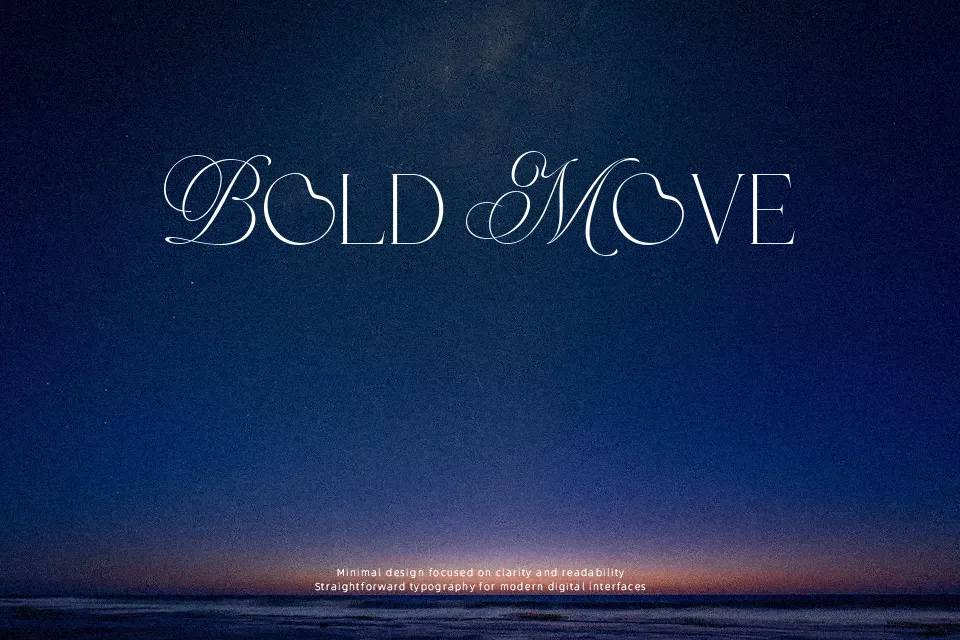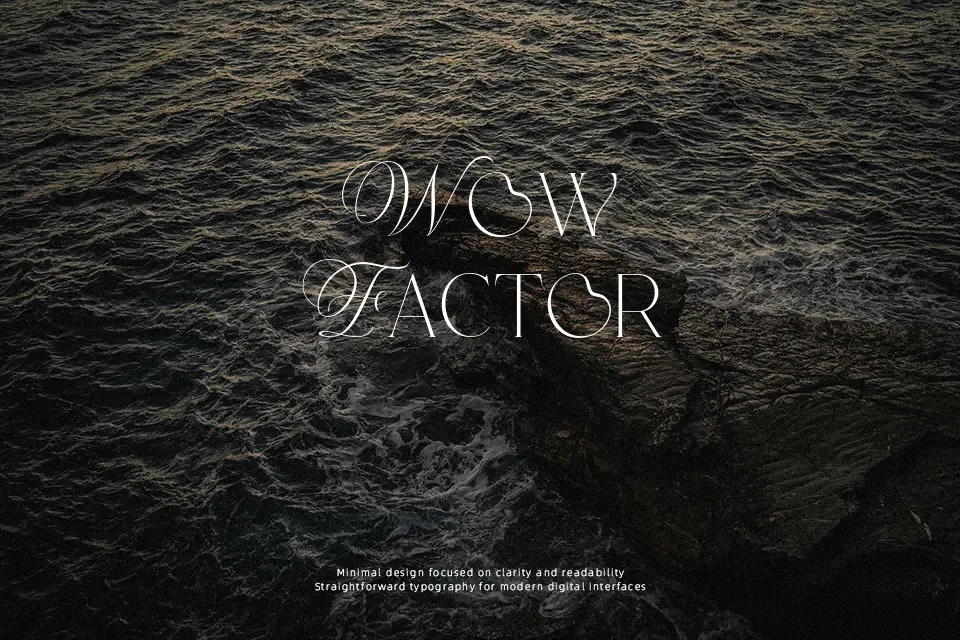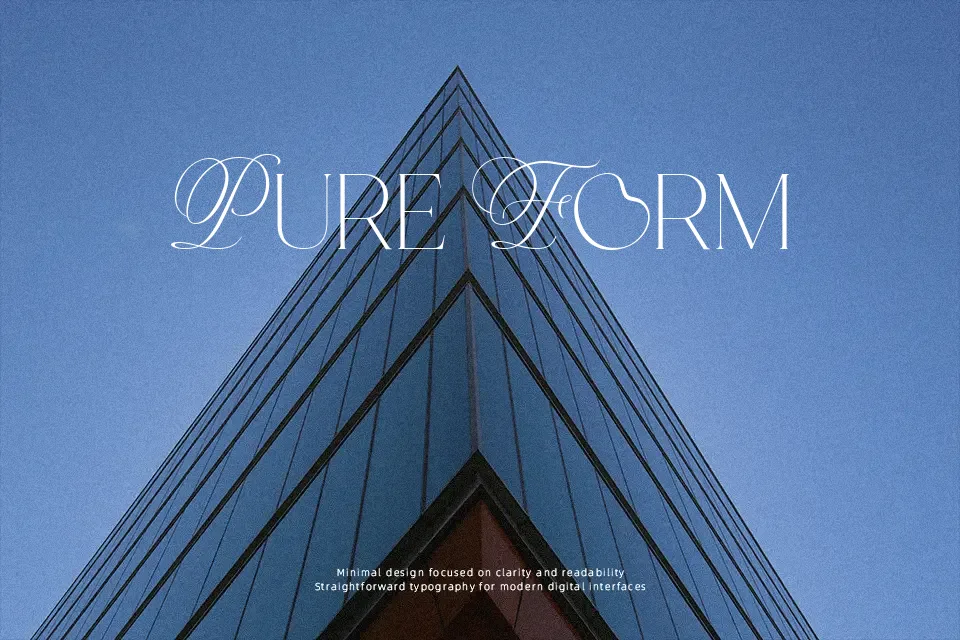
Bromawo Font
Bromawo combines a slim, charming serif base with sweeping script-style alternates, giving each letter a high-contrast, slightly fragile look that feels polished rather than flashy. The spacing leans tight in display sizes, so headlines and logotypes feel cohesive, while the extended swashes add drama when you need a focal word. In practice, it works well for product packaging, magazine and book covers, fashion branding, and social media graphics where you want something elegant but still readable at larger sizes. For long body text, dense UI, or small captions, the decorative strokes and contrast can become distracting, so it is better reserved for key titles and hero typography.
Fashion or beauty branding headlines and logos
Magazine or book covers with a refined aesthetic
Product packaging and label designs that need a luxurious tone
Social media promotional graphics with elegant focal text
Long paragraphs or continuous body copy at small sizes
Dense UI layouts or apps needing highly functional text
Very minimal brands that avoid decorative swashes and contrast
Utility documents where neutral, low-contrast type is required